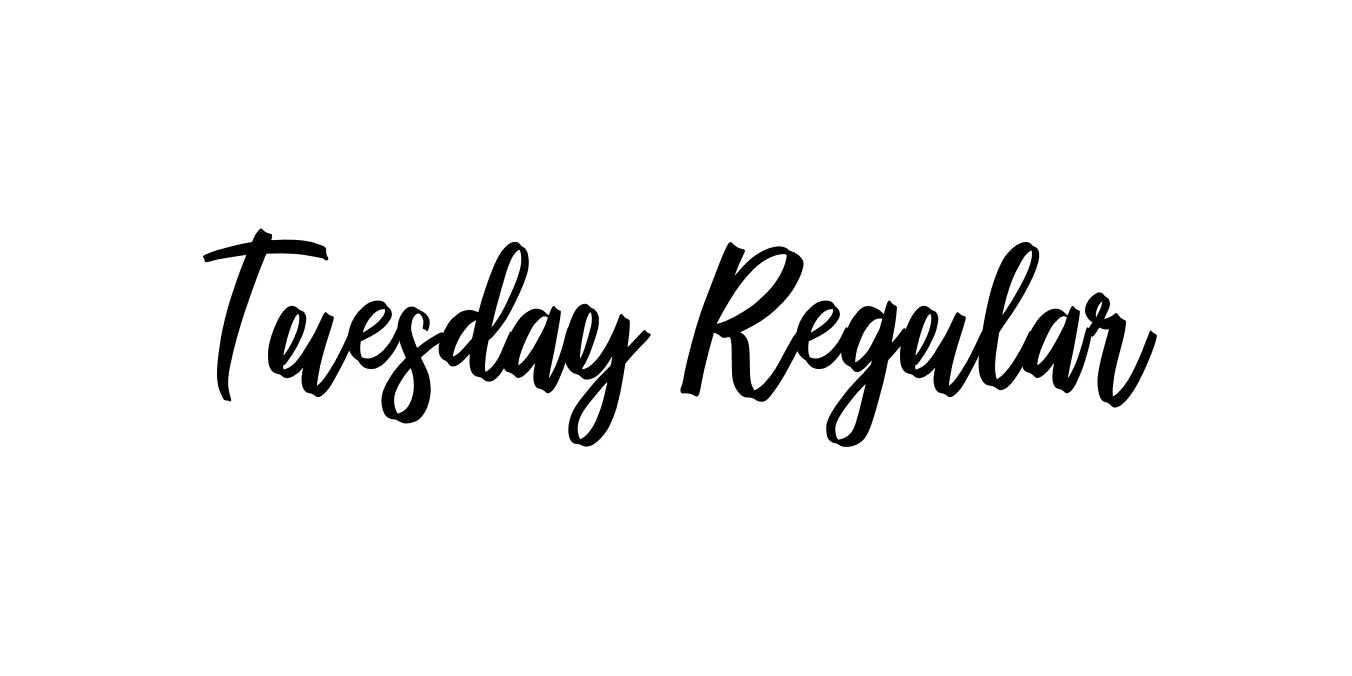
Tuesday Regular
Designed by Emir Studio
Tuesday Regular is a beautifully crafted hand-painted script font that captures the essence of modern calligraphy with its fluid, rhythmic strokes. This typeface features a distinct organic texture, mimicking the natural imperfections of a physical brush on paper. Its sophisticated yet approachable design makes it an excellent choice for designers looking to infuse their projects with a sense of warmth, personality, and bespoke elegance.
The versatility of Tuesday Regular lies in its balanced proportions and elegant ligatures, which ensure that the text remains legible even in decorative settings. It is widely used in high-end branding, editorial design, and personalized stationary. Whether utilized for a minimalist logo or a vibrant social media campaign, this font provides a high-energy, handcrafted aesthetic that stands out in a crowded digital landscape.
Tuesday Regular Best Uses
Perfect for creating romantic and sophisticated event stationery.
Ideal for boutique brands and artisanal businesses seeking a handcrafted identity.
Adds a personal, stylish touch to Instagram quotes and promotional banners.
Enhances the visual appeal of organic beauty products and luxury goods.